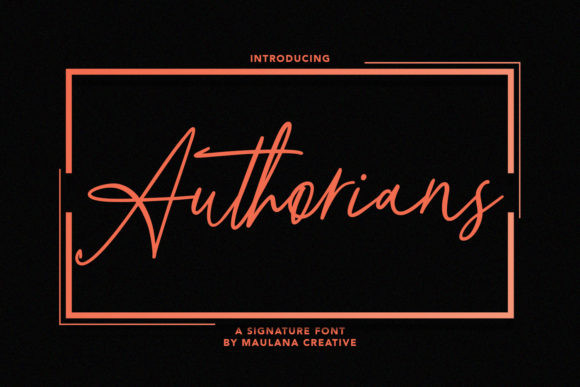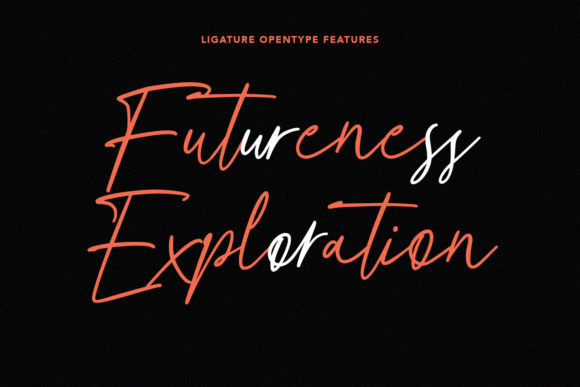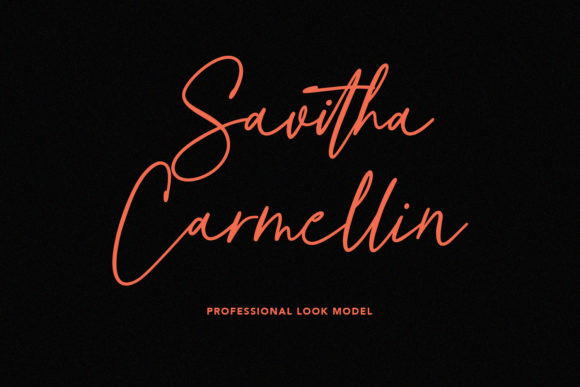
Authorians Font
Authorians is a casual and elegant handwritten font. With its neat and beautiful arrangement of letters, this typeface will look outstanding in both formal and non-formal designs.